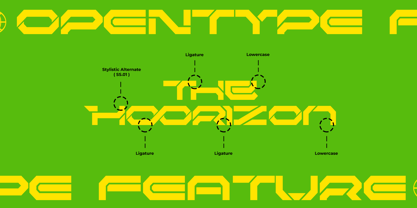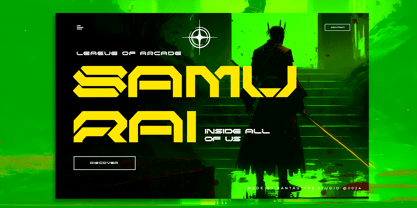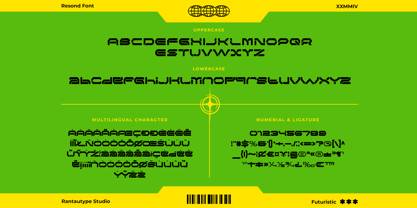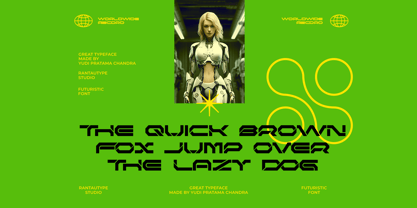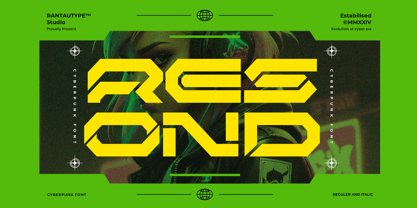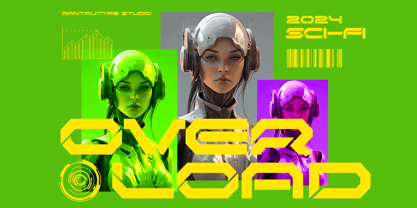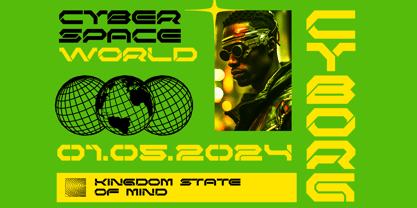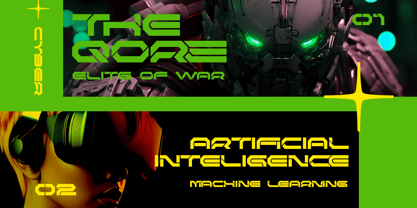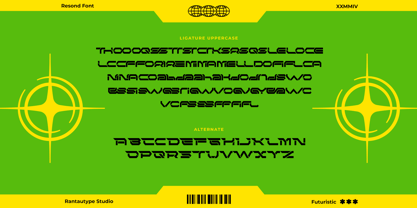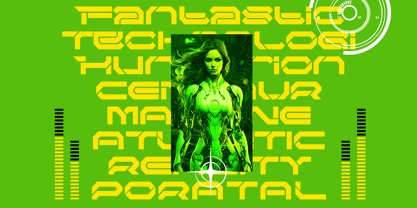
Resond
by RantauType
The Resond Font Family was designed by Yudi Pratama Chandra and published by RantauType. Resond contains 2 styles and family package options. More about this family
Resond it futuristic mecha display font with bold letters looks Edge & Power full. Resond inspire by aesthetics of mecha machinery and futuristic visual design. With its cyberpunk-inspired design, "Resond" transports your audience into a world where technology and imagination intertwine.
Resond is a perfectly choice for any creative endeavor such as logos, advertisements, thumbnail, billboard, display and magazine, headline, website, game project, gaming brand, street wear design, corporate brand, product design, business project and many other project with futuristic touch.
• Alternate and Ligature